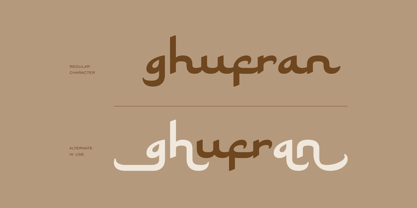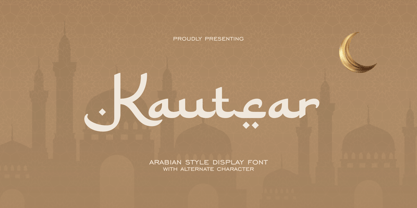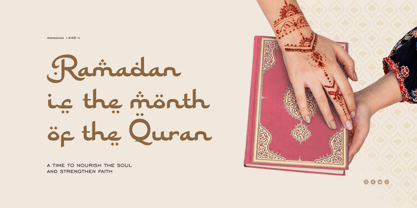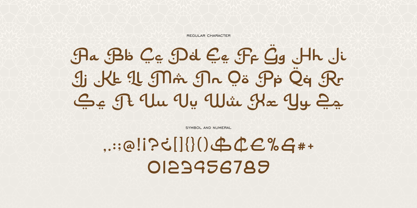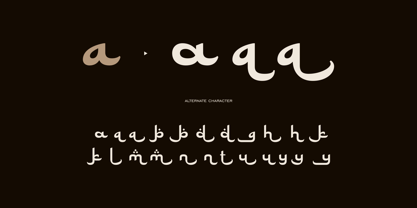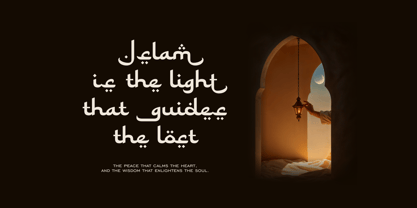
Kautsar
por Runsell Type
La familia tipográfica Kautsar fue diseñada por Satia Hayu Prabowo y publicada por Runsell Type. Kautsar contiene 1 estilos. Más información sobre esta familia
Kautsar inspired from the timeless beauty of Arabic script, this display font captures the essence of traditional calligraphy while embracing a bold, modern twist. With its flowing, sweeping curves and geometric elegance, this font exudes a sense of sophistication and cultural richness. Ideal for headlines, posters, logos, and branding that aim to evoke a sense of heritage and contemporary flair, it brings a distinctive, exotic touch to any design. The balance between fluidity and structure makes this font perfect for projects that demand attention and a strong visual presence.
Diseñadores: Satia Hayu Prabowo
Fundición: Runsell Type